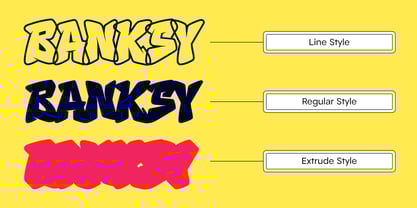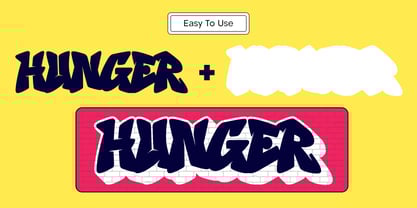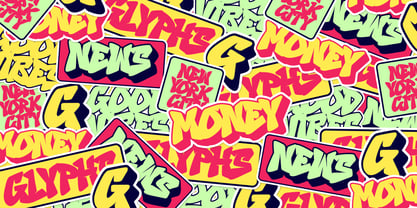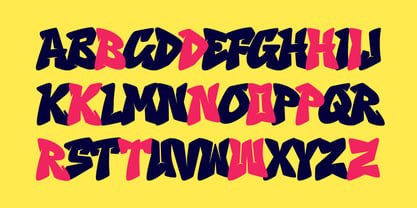
Guner Graffiti
by Fitrah Type
The Guner Graffiti Font Family was designed by Moch Fitrah Hidayat and published by Fitrah Type. Guner Graffiti contains 3 styles and family package options.
Guner Graffiti is a fresh, urban typeface that captures the raw energy of street art. Available in Regular, Extrude, and Outline styles, it’s inspired by the simplicity of graffiti lettering while maintaining readability. Designed for large-scale applications, Guner Graffiti is perfect for posters, zines, stickers, apparel, and bold branding. Whether you’re creating a streetwear aesthetic or eye-catching visuals, this font brings a rebellious yet clean graffiti vibe to any project.
Guner Graffiti